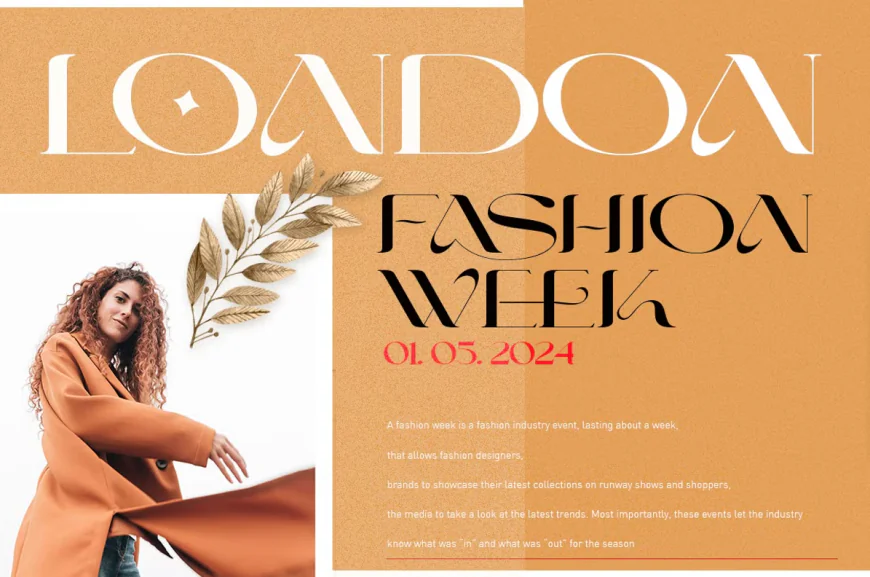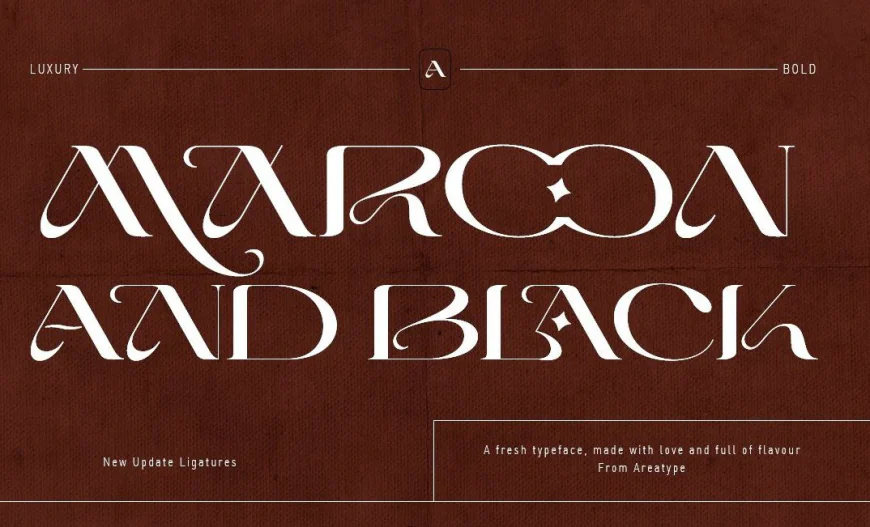
Maroon And Black is a versatile display sans serif font with a clean look and visual elegance. It also comes with Maroon And Black Outline, allowing you to mix and match seamlessly for a harmonious design.
Maroon And Black is a versatile display sans serif font with a clean look and visual elegance. It also comes with Maroon And Black Outline, allowing you to mix and match seamlessly for a harmonious design. Perfect for magazine layouts, wedding invitations, branding, poster designs, and more.